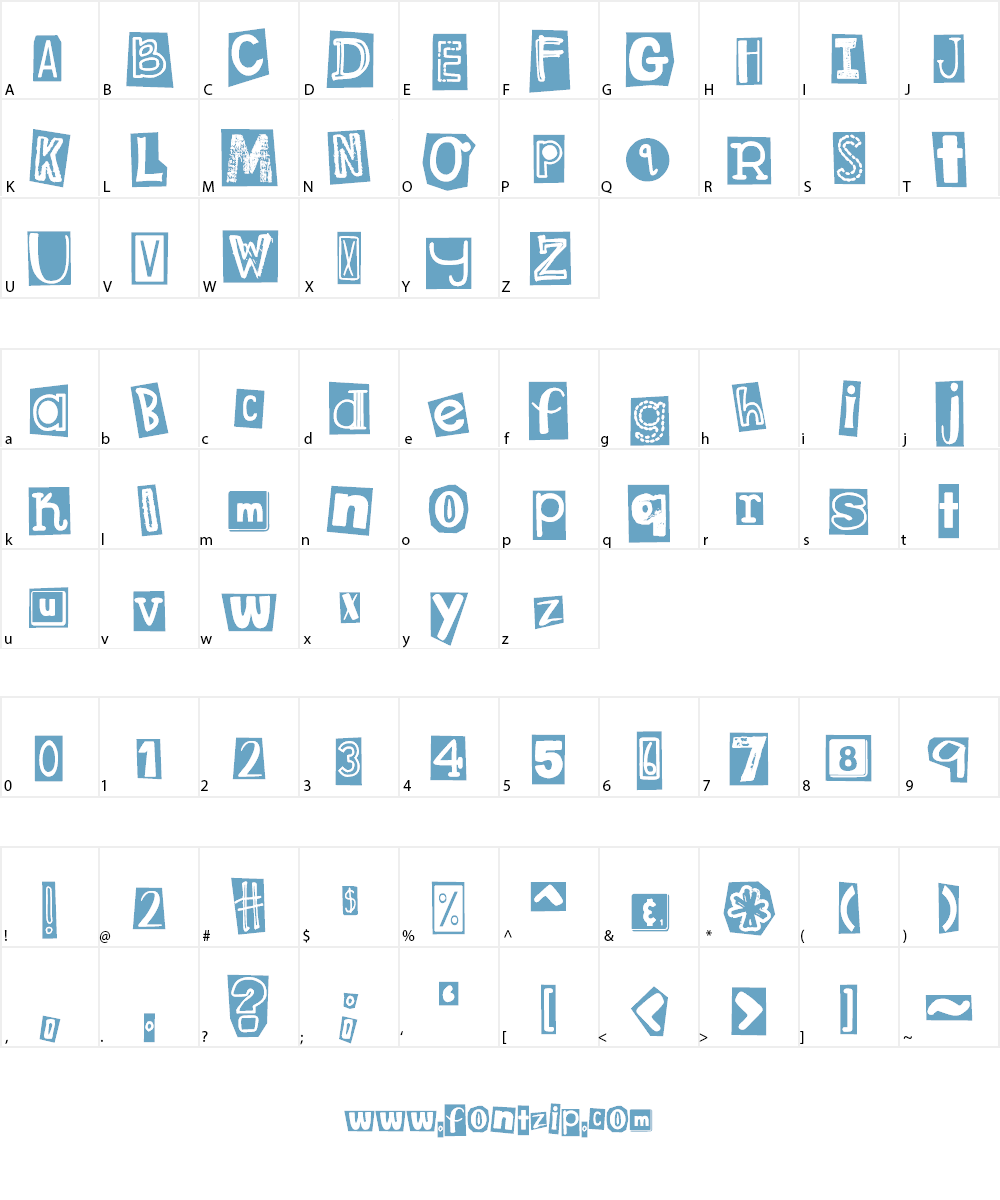
A 'clean' and messy font set that looks like you've clipped it out of a magazine. Font comes with full alphabet, numbers and most common punctuation.